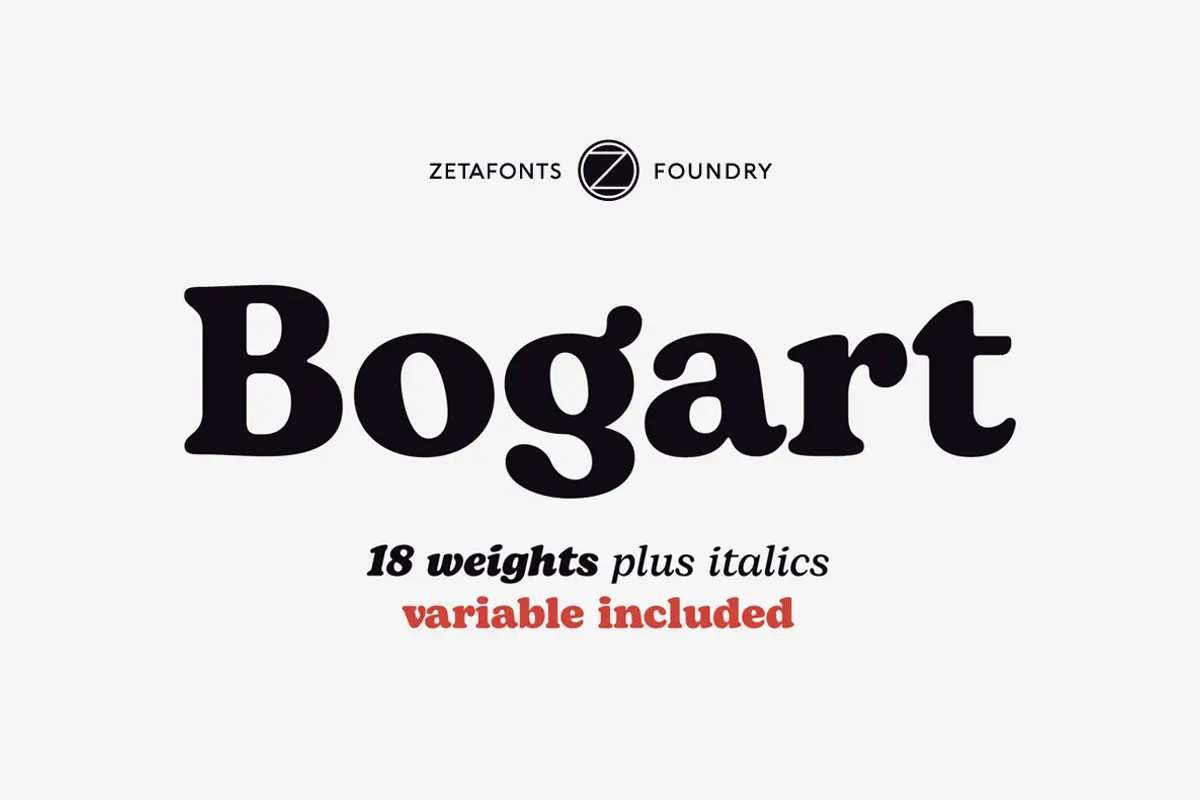
With a wide range of weights and styles, this font family gives you the flexibility to create dynamic designs with ease. It includes uppercase and lowercase letters, numerals, punctuation, and multilingual support, offering versatility for a variety of creative applications.
Whether you're designing a modern brand identity, a sophisticated editorial layout, or sleek promotional materials, Bogart brings clarity, elegance, and professionalism to your typography.